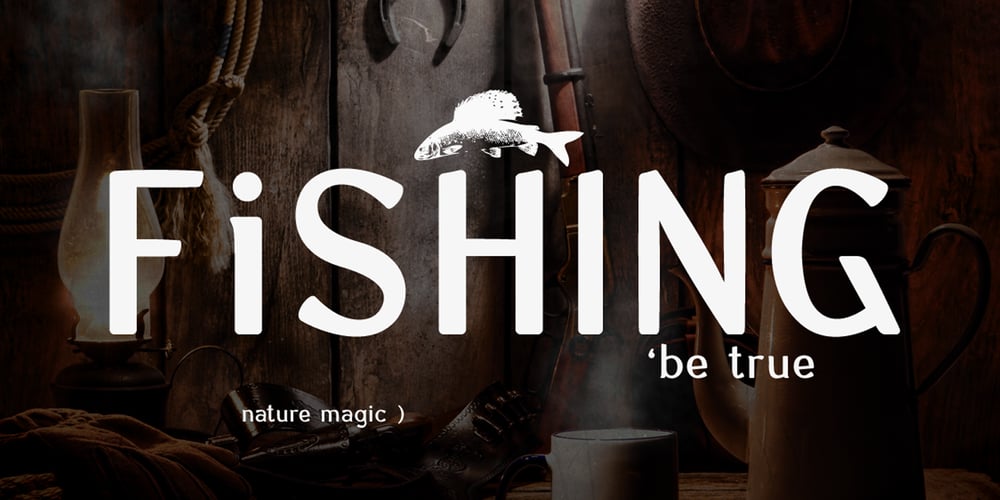
Sungent
Sungent font
Sungent Font Family was designed by Alexey Makarov and published by Alexey Makarov. Sungent contains 1 styles and family package options. This font was inspired by the mountains of Altay. Soft lines and a little asymmetry add a natural touch to Sungent. This font will help add authenticity and personality to your digital work. Contains over 1500 kerning pairs. Language support: Contains full set of Latin alphabet, including diacritical marks for European languages and Cyrillic alphabets.